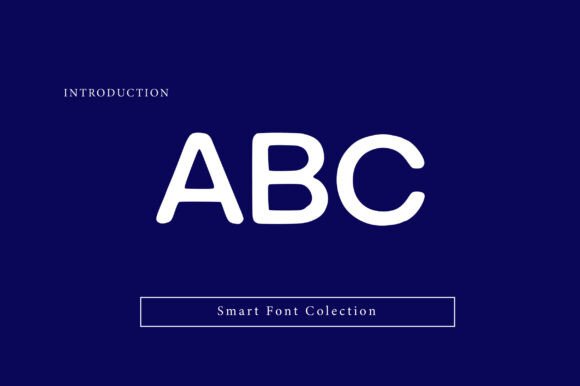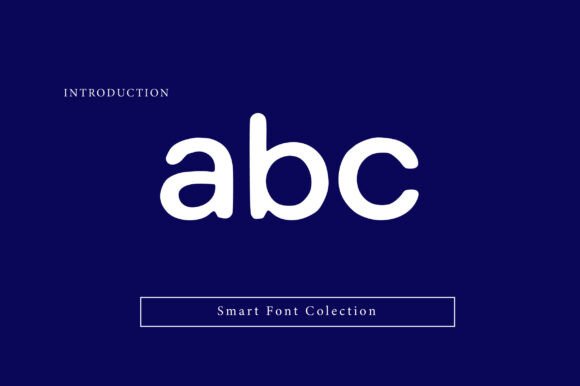
Introduction to Marqo Font
Marqo is a playful and friendly sans-serif font with rounded shapes and a natural pen-drawn feel.
Perfect for kids’ designs, branding, social media graphics, packaging, posters, and creative projects that need a warm, casual, and approachable style Marqo works beautifully in both digital and print designs, offering excellent readability with a fun personality.